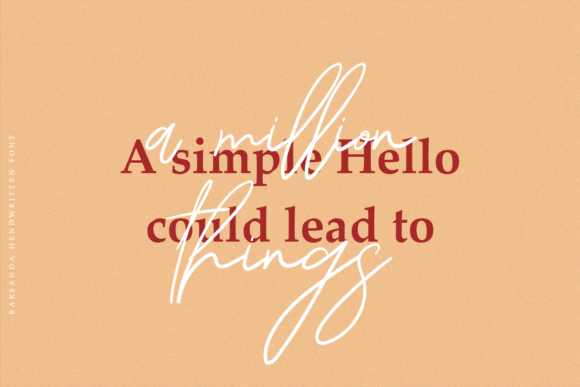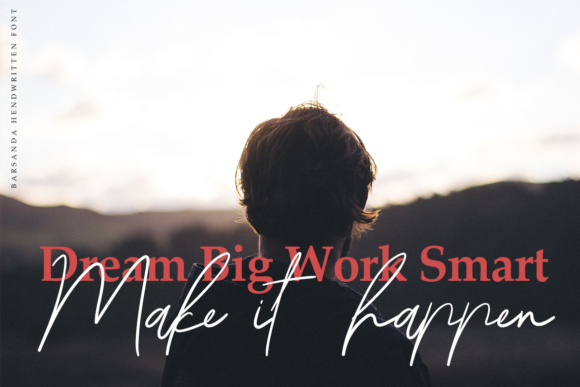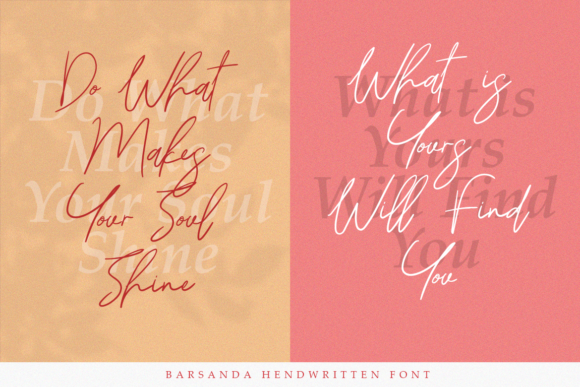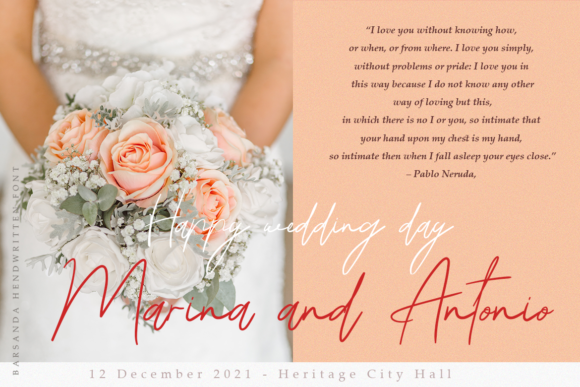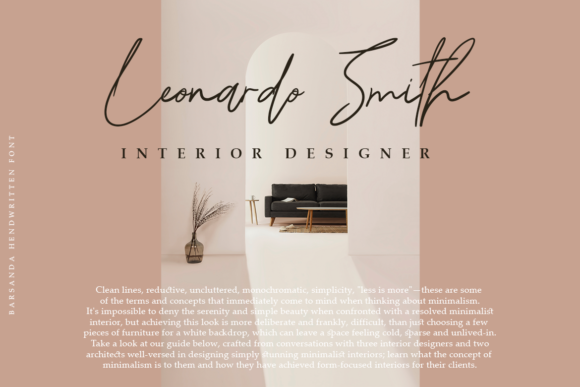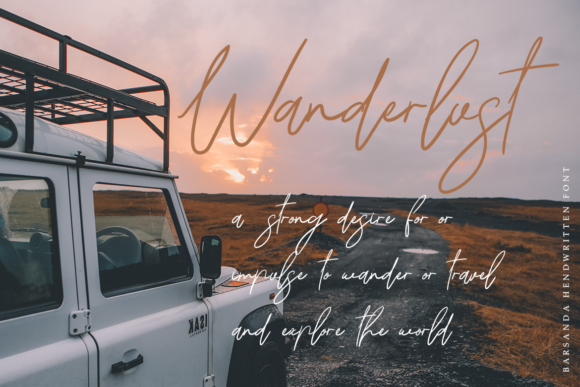
Introduction to Barsanda Script Font
Barsanda Script is a lovely and delicate script font that exudes elegance and class.
This font was particularly crafted for those who need a beautiful and refreshing look to their designs .
Key Features of Barsanda Script Font
Why Choose Barsanda Script Font?
Barsanda Script Font offers exceptional quality and versatility, making it a valuable addition to your design toolkit. Whether you’re creating for personal projects or commercial use, Barsanda Script Font delivers professional results.